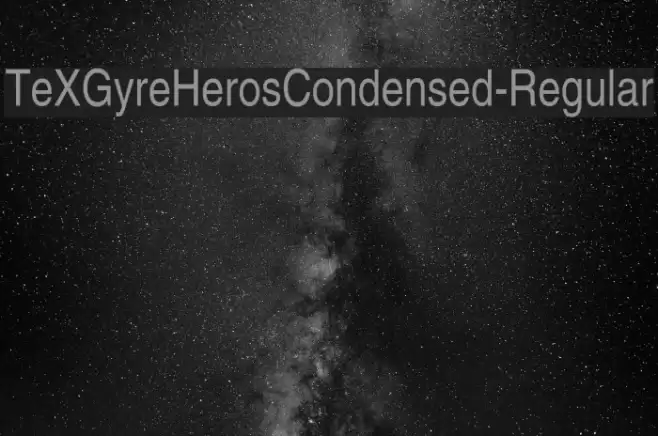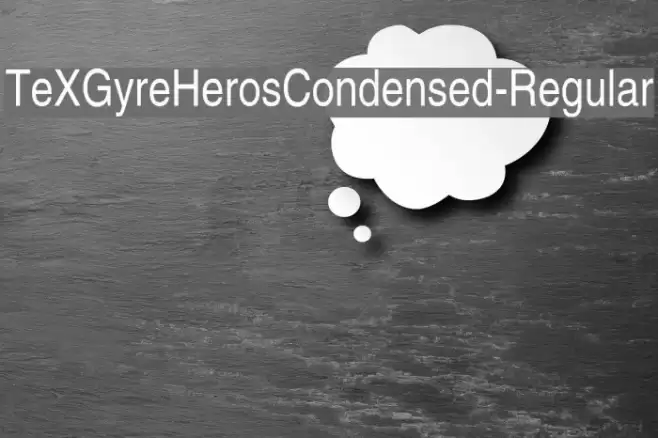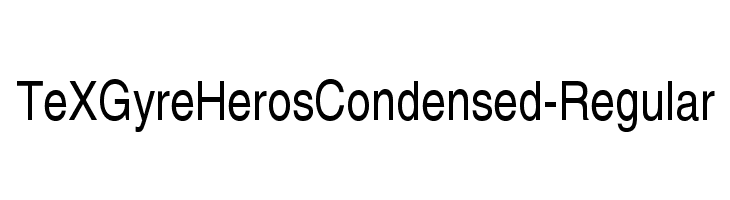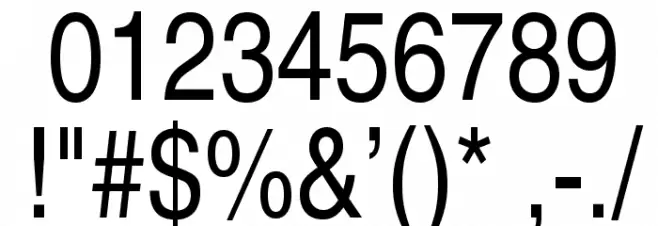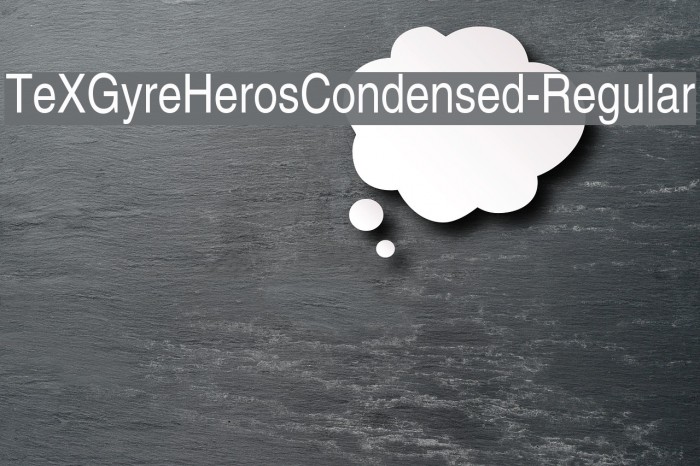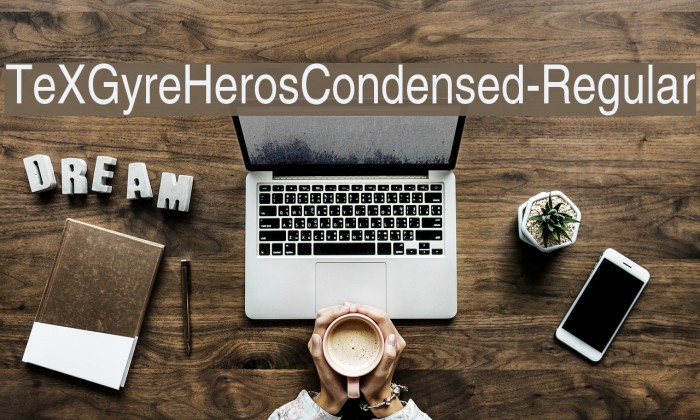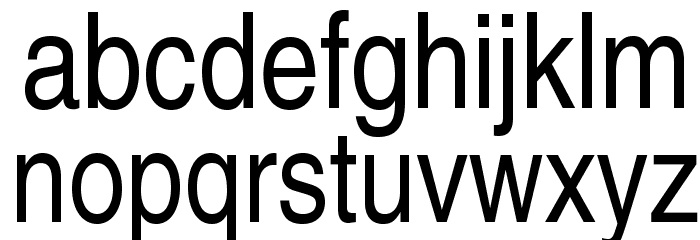
TeXGyreHerosCondensed-Regular Font
TeXGyreHerosCondensed-Regular Description
This typeface features a clean and modern sans-serif design with a condensed width, making it ideal for space-saving applications. The characters are uniform and well-balanced, providing excellent readability across both uppercase and lowercase letters. The numerals are clear and distinct, ensuring easy legibility in numerical data. Special characters are well-crafted, maintaining the overall aesthetic of the font. Its simplicity and clarity make it versatile for various design needs.
A modern, condensed sans-serif font with excellent readability from Uncategorized fonts.
- Proposed Projects: Ideal for use in headlines, posters, and any design requiring a modern, space-efficient typeface.
- Use Case: Headlines, Posters, Data presentation